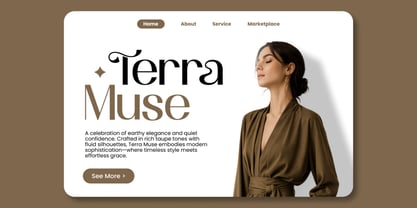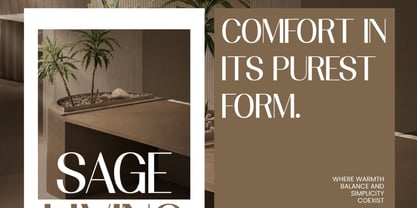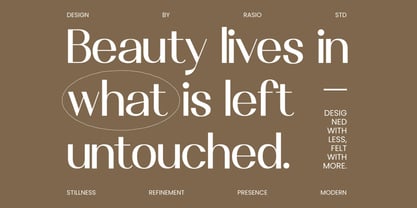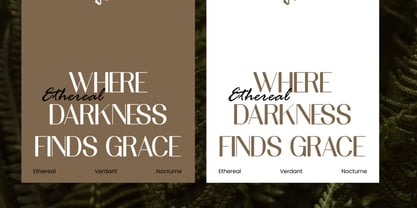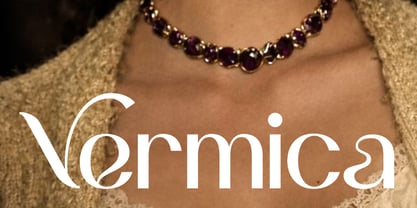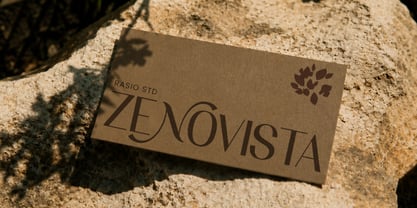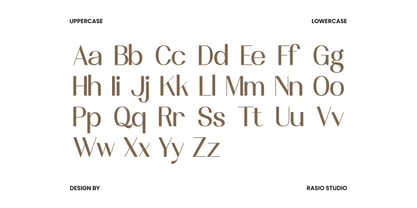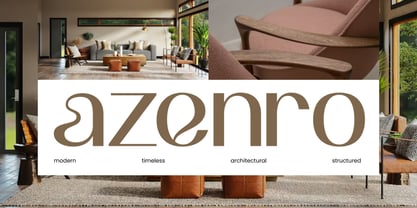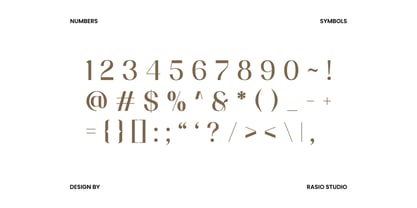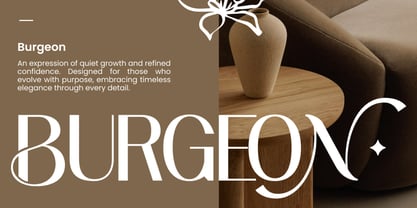
Vermica
von Rasio Studio
Die Schriftfamilie Vermica wurde von Fajar Indra entworfen und von Rasio Studio veröffentlicht. Vermica enthält 1 Stile. Mehr über diese Familie
Vermica is a refined contemporary typeface that combines clean geometric construction with graceful high-contrast proportions to create a sophisticated visual identity. The letterforms feature slender vertical strokes, subtly tapered terminals, and smooth rounded curves that produce an elegant rhythm while maintaining exceptional clarity. Carefully balanced proportions, generous counters, and precise spacing allow each character to stand confidently in both large display settings and refined branding applications, giving the typeface a luxurious yet highly versatile personality.
Relevance and Use Case is perfect for premium branding and sophisticated visual communication where clean typography and refined aesthetics are essential. It performs beautifully across fashion identities, beauty and cosmetic packaging, luxury product branding, editorial magazines, boutique logos, hotel and hospitality branding, wedding stationery, portfolio websites, presentations, social media campaigns, and high-end advertising that demand a timeless and elegant typographic presence.
Designer: Fajar Indra
Foundry: Rasio Studio